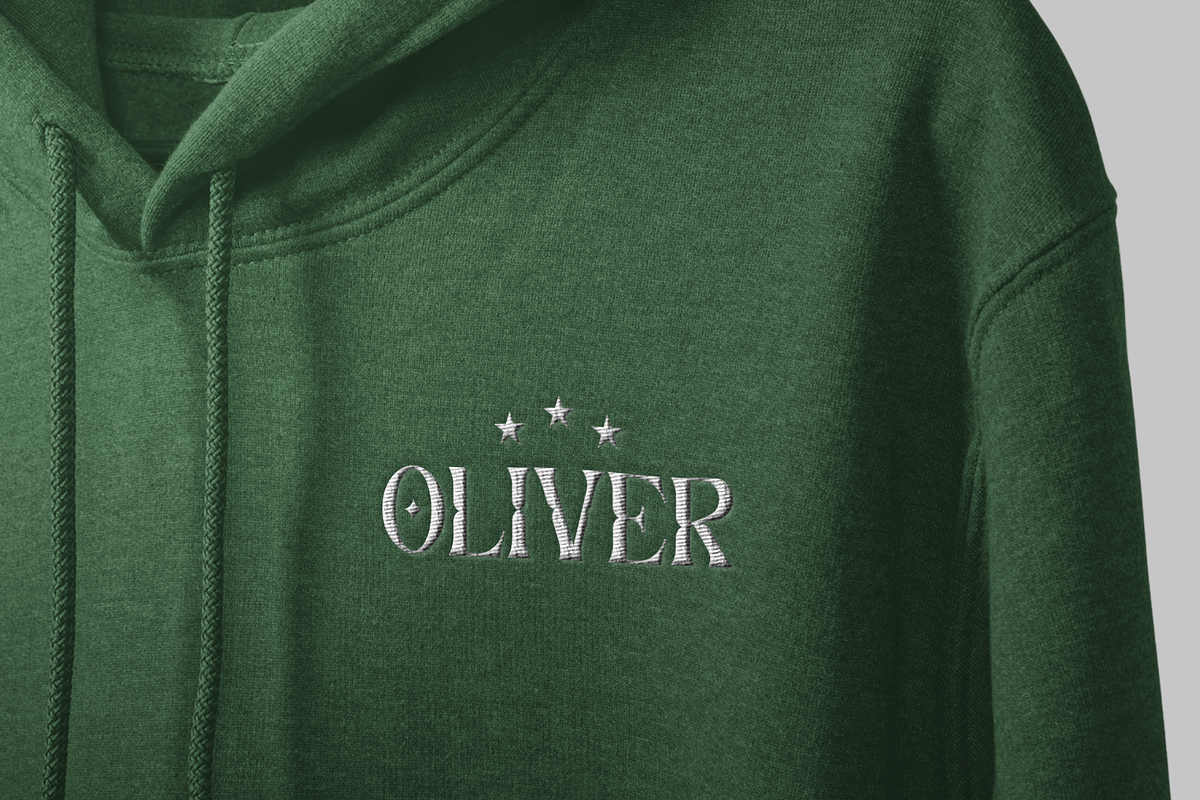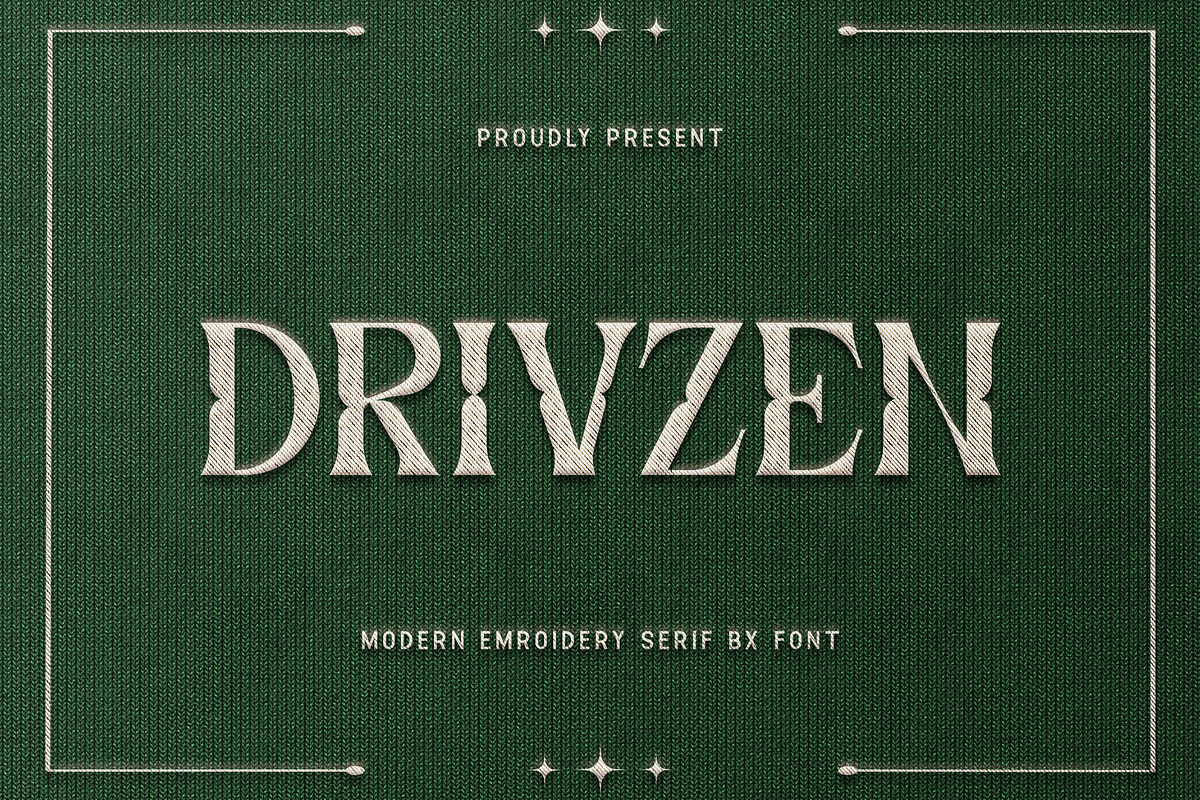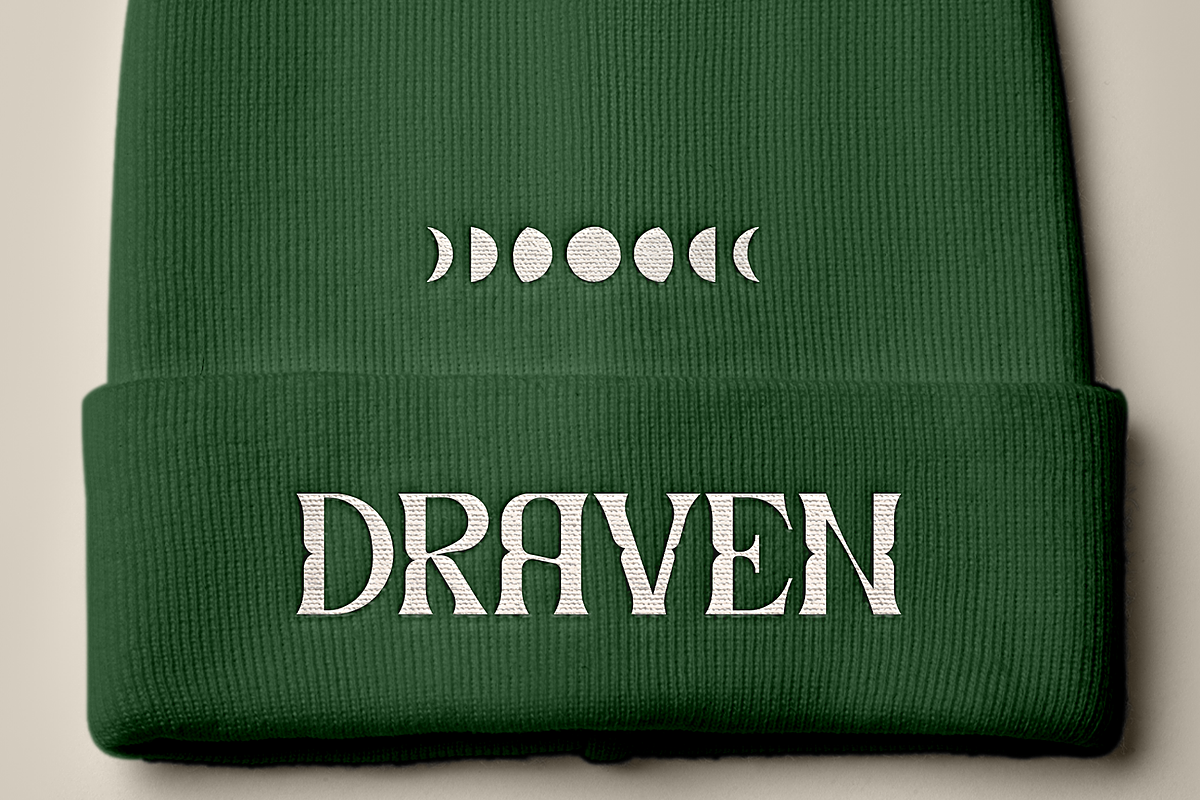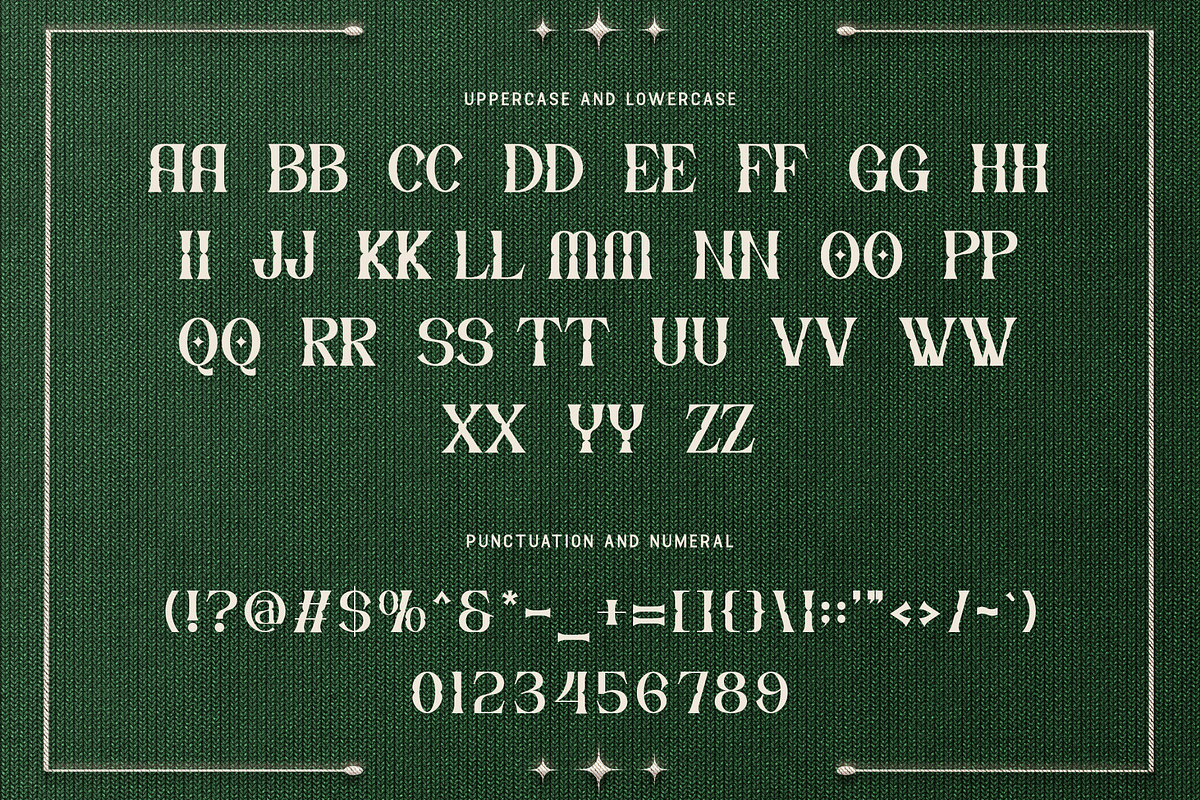
Drivzen-ModernEmbroidery SerifBXFont
Drivzen - Modern Embroidery Serif BX Font
Introducing "Drivzen," a modern embroidery serif BX font that combines the timeless art of stitching with contemporary sophistication. Crafted with meticulous attention to detail, Drivzen redefines embroidery typography, bringing a fresh perspective to traditional needlework.
Ideal for embroidery enthusiasts, designers, and crafters, Drivzen adds an element of elegance to a variety of creative projects. Its sleek serifs and clean lines create a refined aesthetic that enhances the beauty of embroidered designs on apparel, accessories, home decor, and more.
The "Drivzen" font includes a comprehensive set of uppercase and lowercase letters, numbers, and punctuation marks, providing versatility and flexibility for all your embroidery needs. Whether you're embellishing garments or creating decorative accents, Drivzen elevates your designs with its contemporary sophistication.
Experience the beauty of embroidery reimagined with the modern elegance of Drivzen serif BX font.